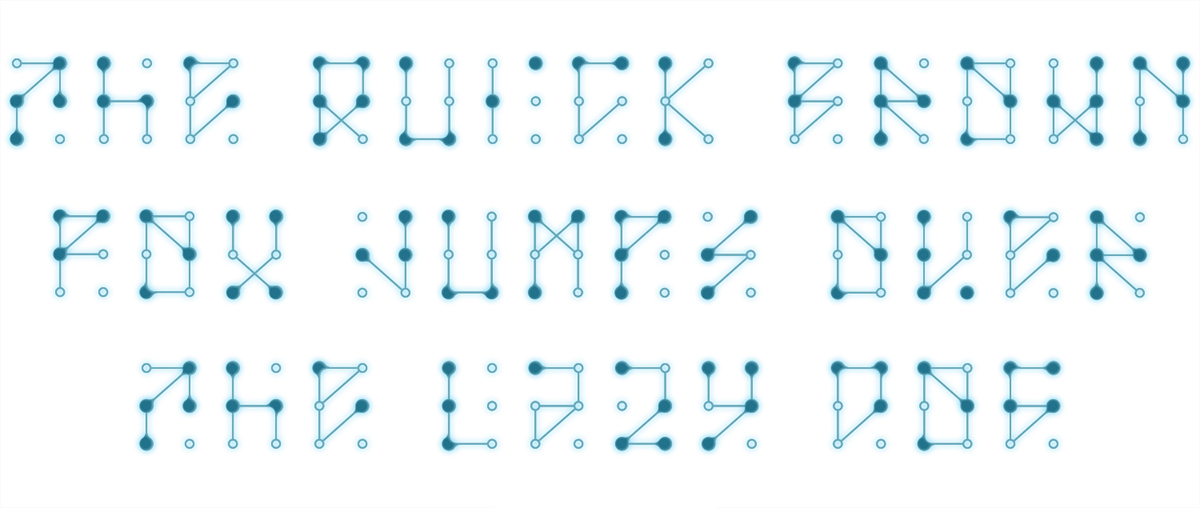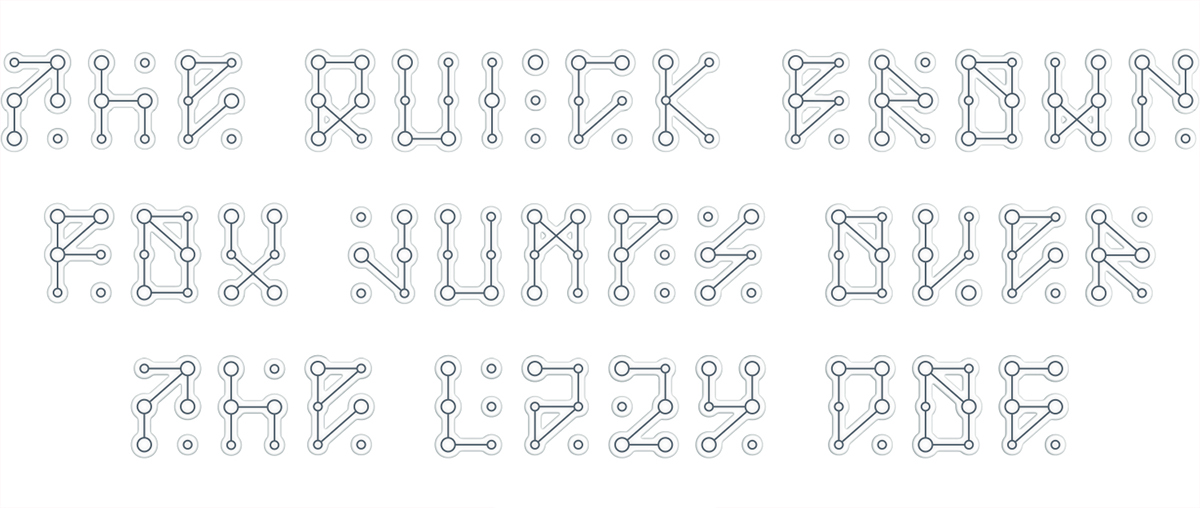
Braille Font For Illustrator
Braille Font For Illustrator. The font would need to reference the standards and allow: By using the braille font tool below, you can easily convert or translate your text into braille writing.
Selecting The Varying Sizes Of Dots
Numbers, Letters And Punctuation Marks.
Add Braille To The Choice Of Fonts.
Some Choices In Changing The Language (American Versus French And So Forth) Selecting The Varying Spacings;
By Using The Braille Font Tool Below, You Can Easily Convert Or Translate Your Text Into Braille Writing.